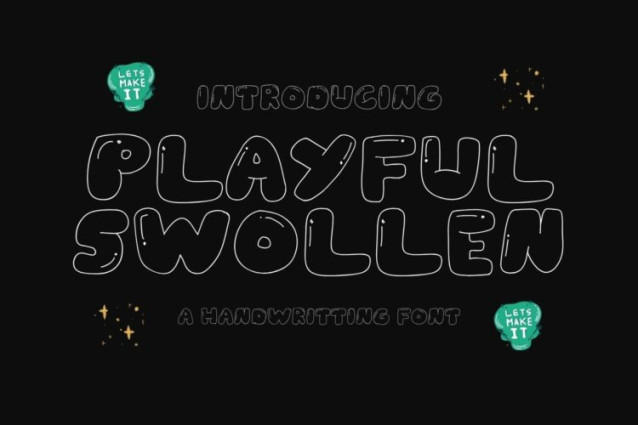
Playful Swollen Font
Playful Swollen Font is a chunky, comic, and cartoon display font. With its neat and joyful personality, this font will enhance any project you wish to create!